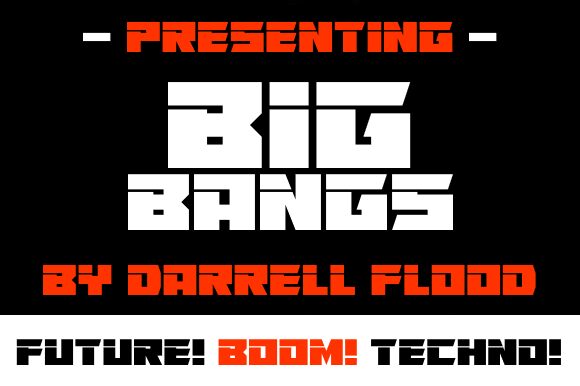
Big Bangs Italic
Big Bangs Italic, a creation by font designer Hawtpixel, is a striking display font with a futuristic twist. With its extra-bold weight and extra-expanded width, this font demands attention and exudes confidence. Its unique italic style adds a touch of elegance and sophistication to any design project.
Perfect for modern websites, fashion magazines, or cutting-edge branding campaigns, Big Bangs Italic is suitable for projects that aim to make a bold statement. Use it to captivate your audience with its futuristic allure and create designs that are out of this world.